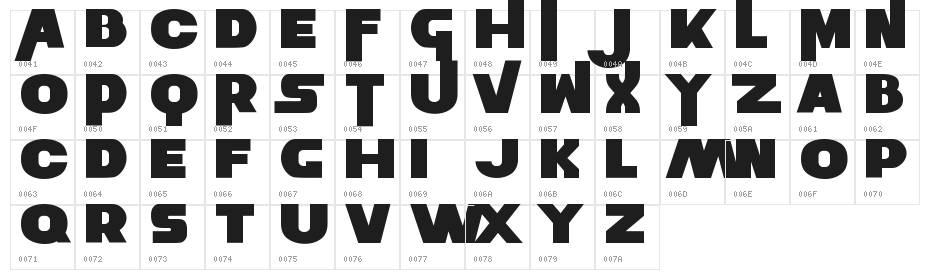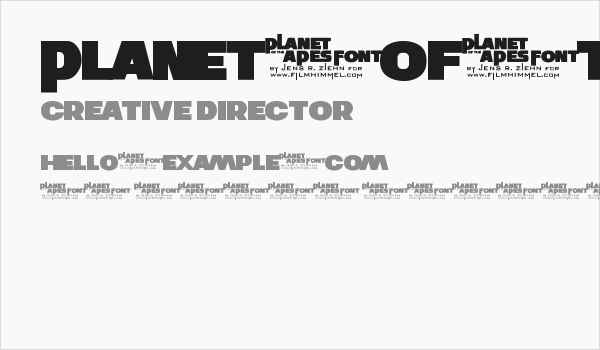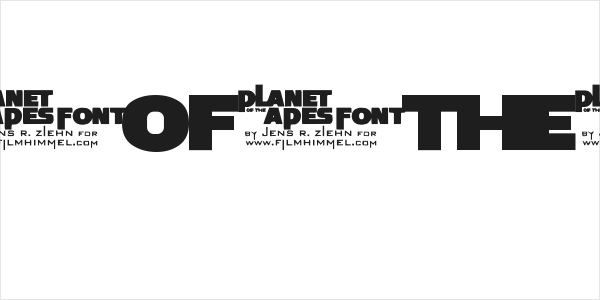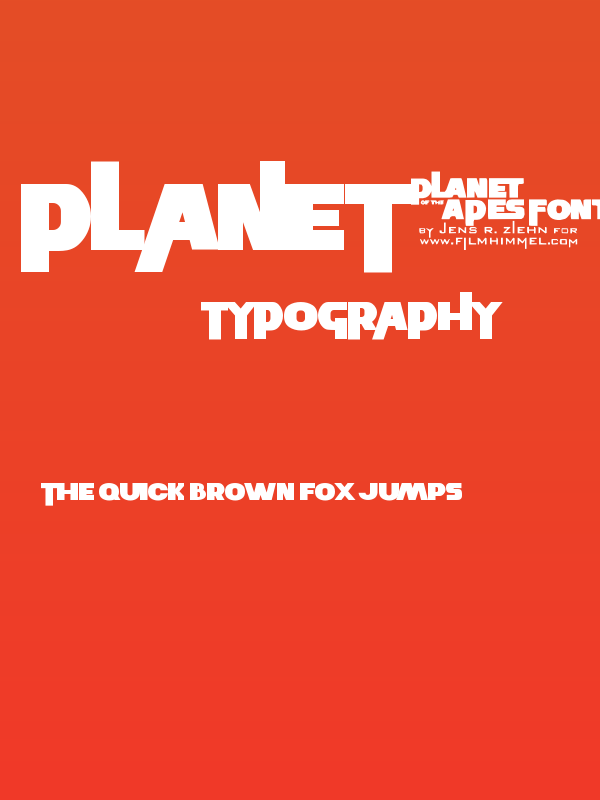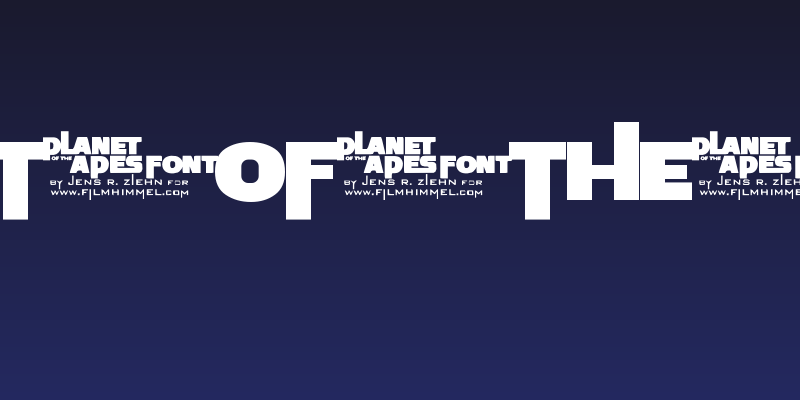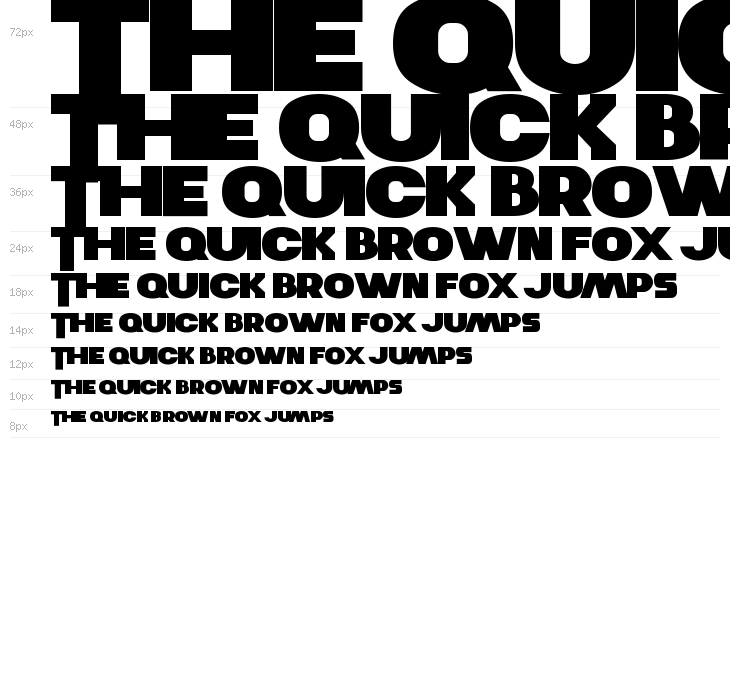
Planet-of-the-Apes Font
Planet-of-the-Apes Description
This font features a bold and impactful design with a strong geometric structure. The uppercase letters are characterized by their thick, uniform strokes and angular edges, creating a sense of strength and stability. The design is reminiscent of retro-futuristic styles, with a touch of modernism. The font's solid and blocky appearance makes it highly legible and suitable for attention-grabbing headlines. Its unique style is both distinctive and versatile, allowing it to stand out in various design contexts. The font's boldness is complemented by its clean lines, making it an excellent choice for projects that require a strong visual presence.
Overall StyleRetro-Futuristic
Proposed ProjectsIdeal for movie posters, video game titles, branding, and advertising campaigns that require a bold statement.